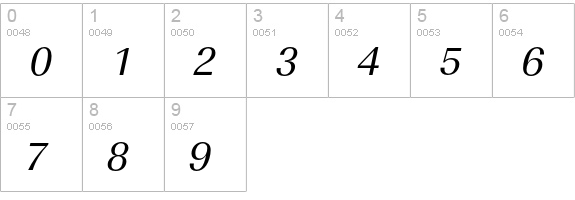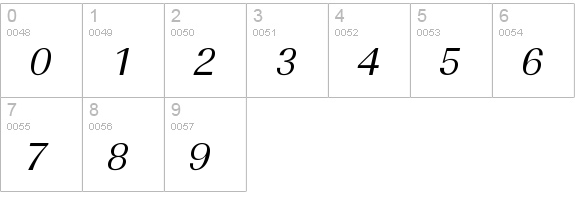
URWImperialTOTWid Oblique Font Details
URWImperialTOTWid Oblique is a distinctive, italic variant in the URWImperialTOTWid typeface family \xE2\x80\x94 well suited to design and typography projects.
URWImperialTOTWid Oblique is a sleek and stylish font that exudes sophistication and elegance. With its unique slanted design, this font is perfect for adding a touch of sophistication to any project. The clean lines and modern look make it ideal for a wide range of uses, from branding to graphic design. Best of all, URWImperialTOTWid Oblique is available for free download at FontsMarket.com. This means you can easily add this beautiful font to your collection without any cost. Don't miss out on the opportunity to enhance your designs with this stunning typeface. Download URWImperialTOTWid Oblique today and take your projects to the next level!